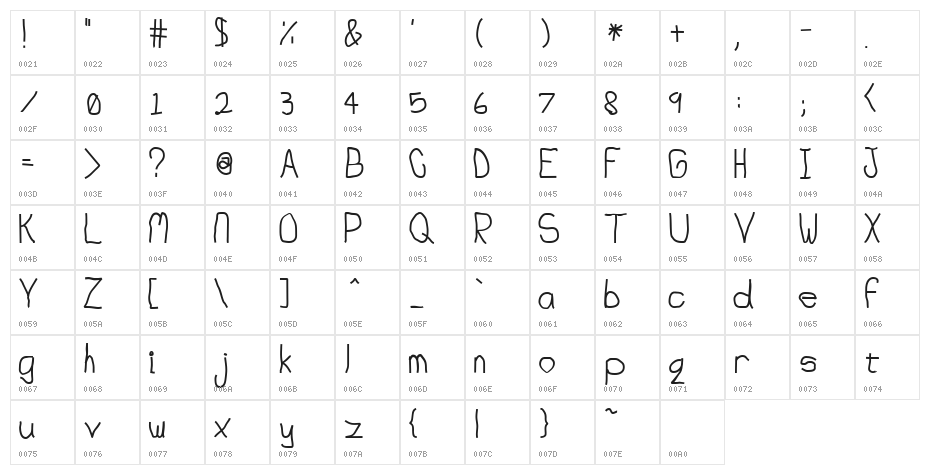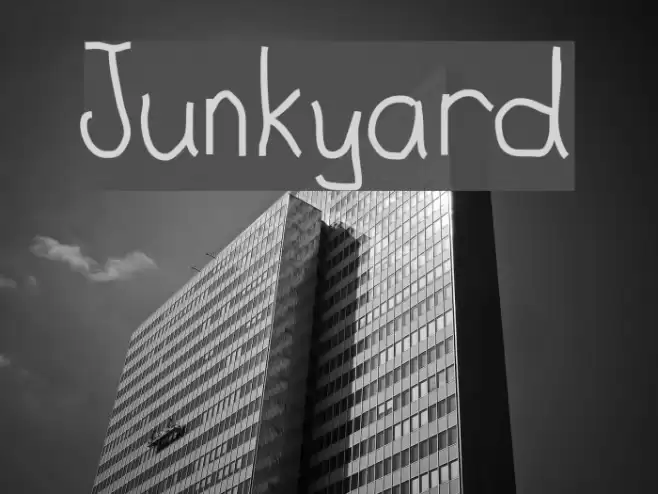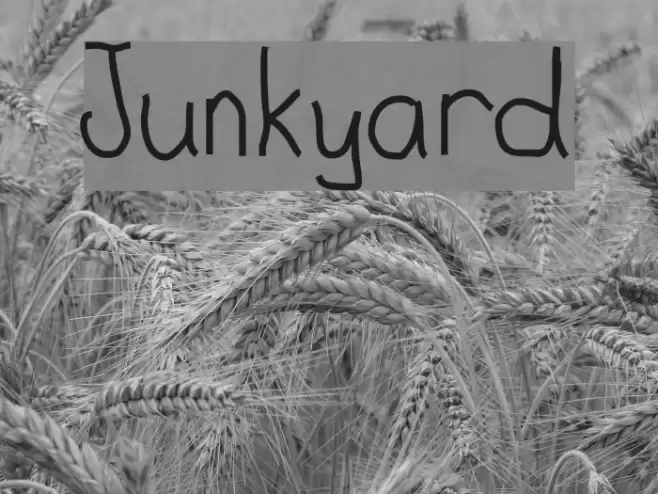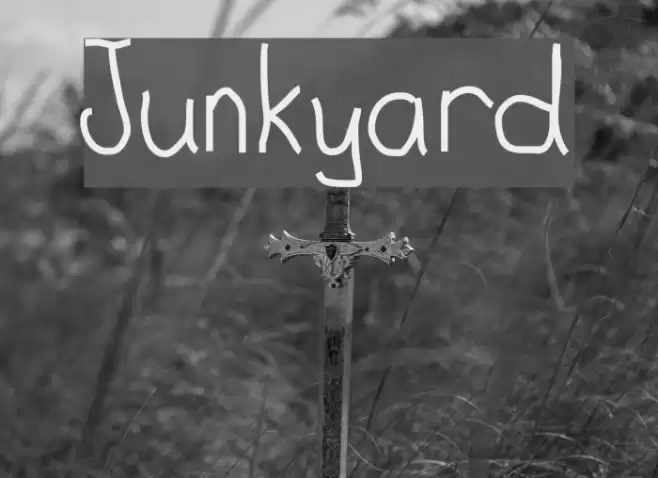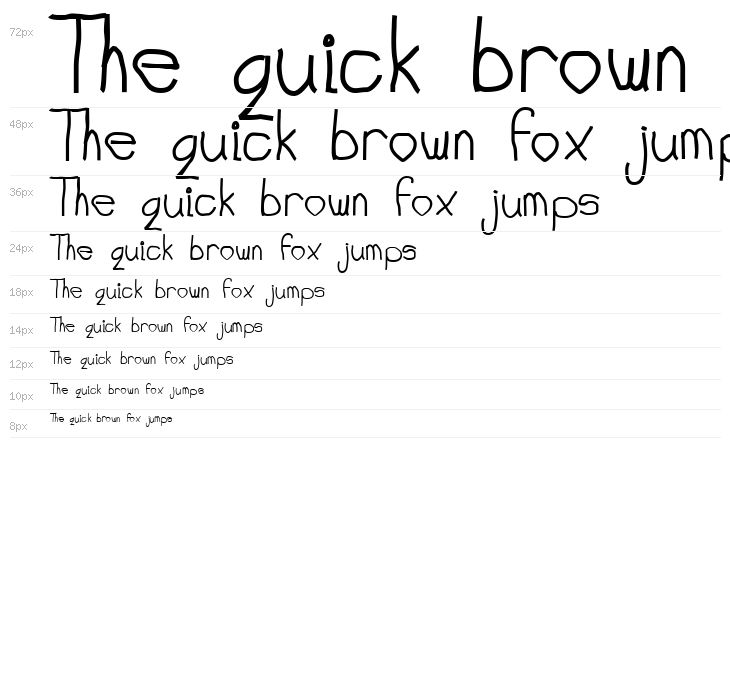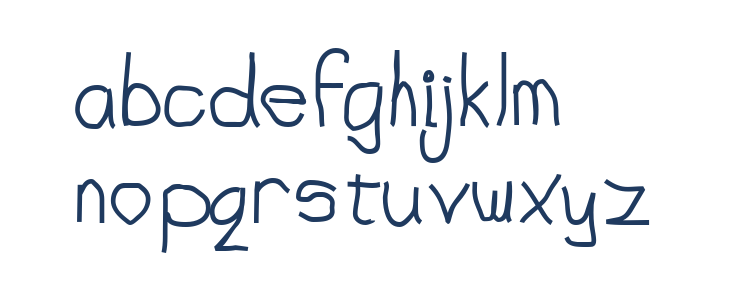
Junkyard Font
Junkyard Description
This font features a playful and quirky handwritten style, characterized by its irregular and uneven strokes. The letters have a casual, almost doodle-like appearance, with varying heights and widths that give it a unique charm. The uppercase letters are bold and prominent, while the lowercase letters maintain a consistent flow, adding to the font's informal aesthetic. Numbers and special characters are crafted with the same whimsical touch, making them stand out in a fun and engaging way. The overall design is reminiscent of a child's handwriting, making it perfect for projects that require a personal and approachable feel.
Cheapskate Fonts
| Proposed Projects | Ideal for children's books, playful branding, casual invitations, and creative posters. |